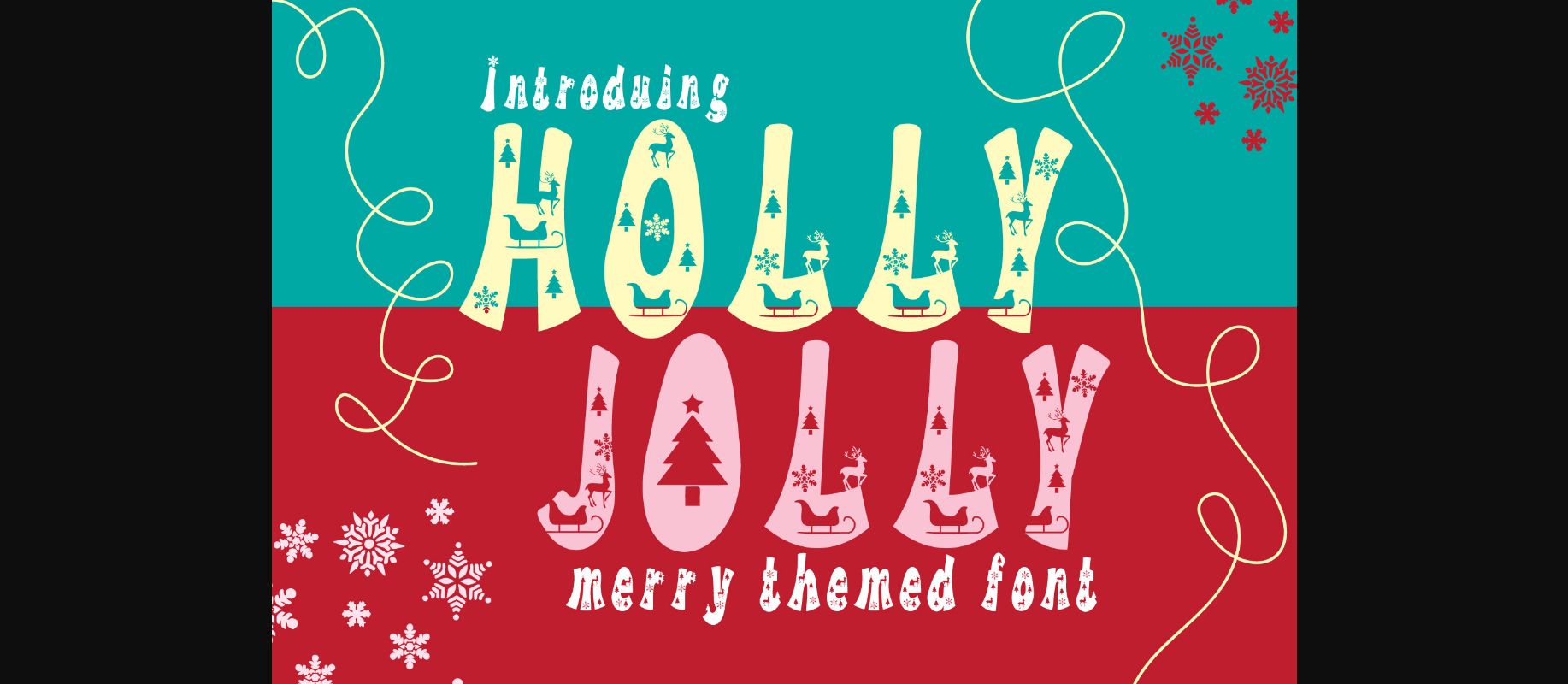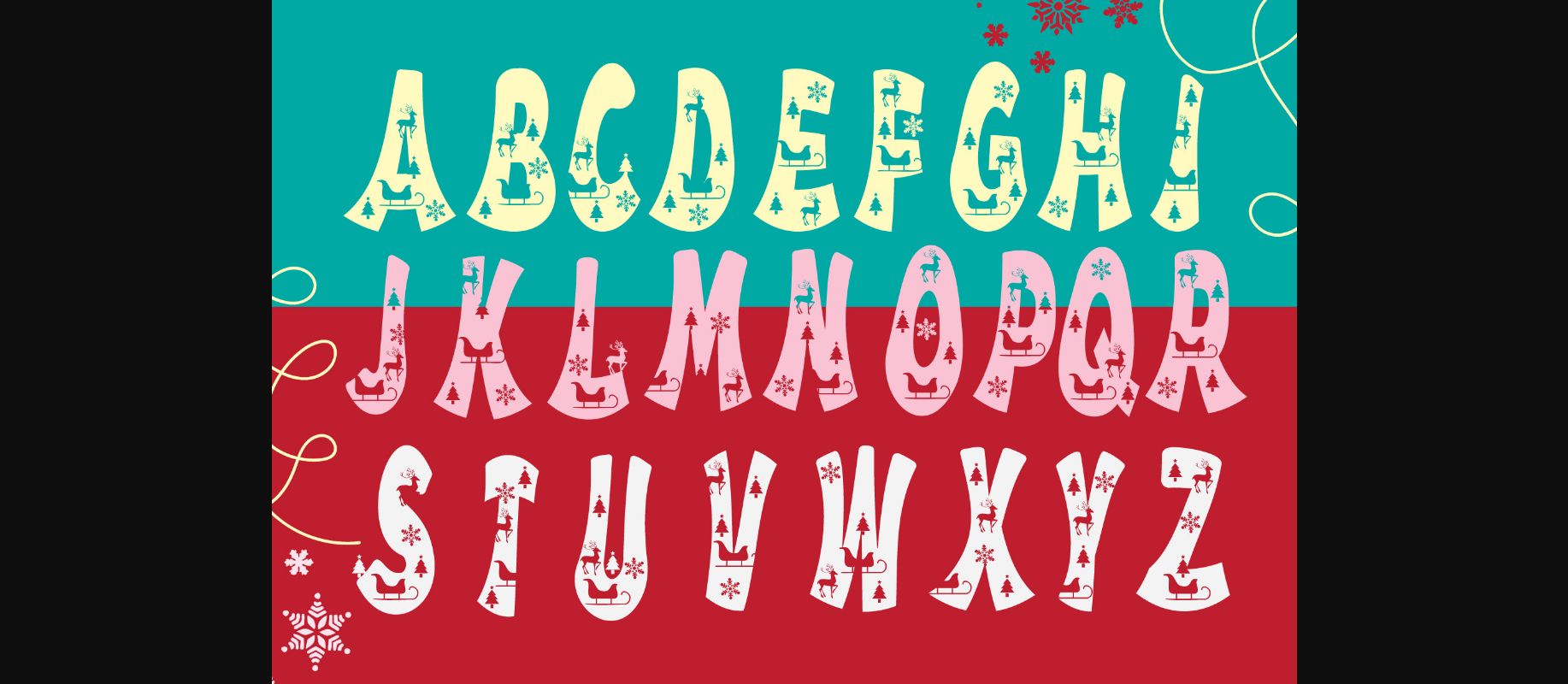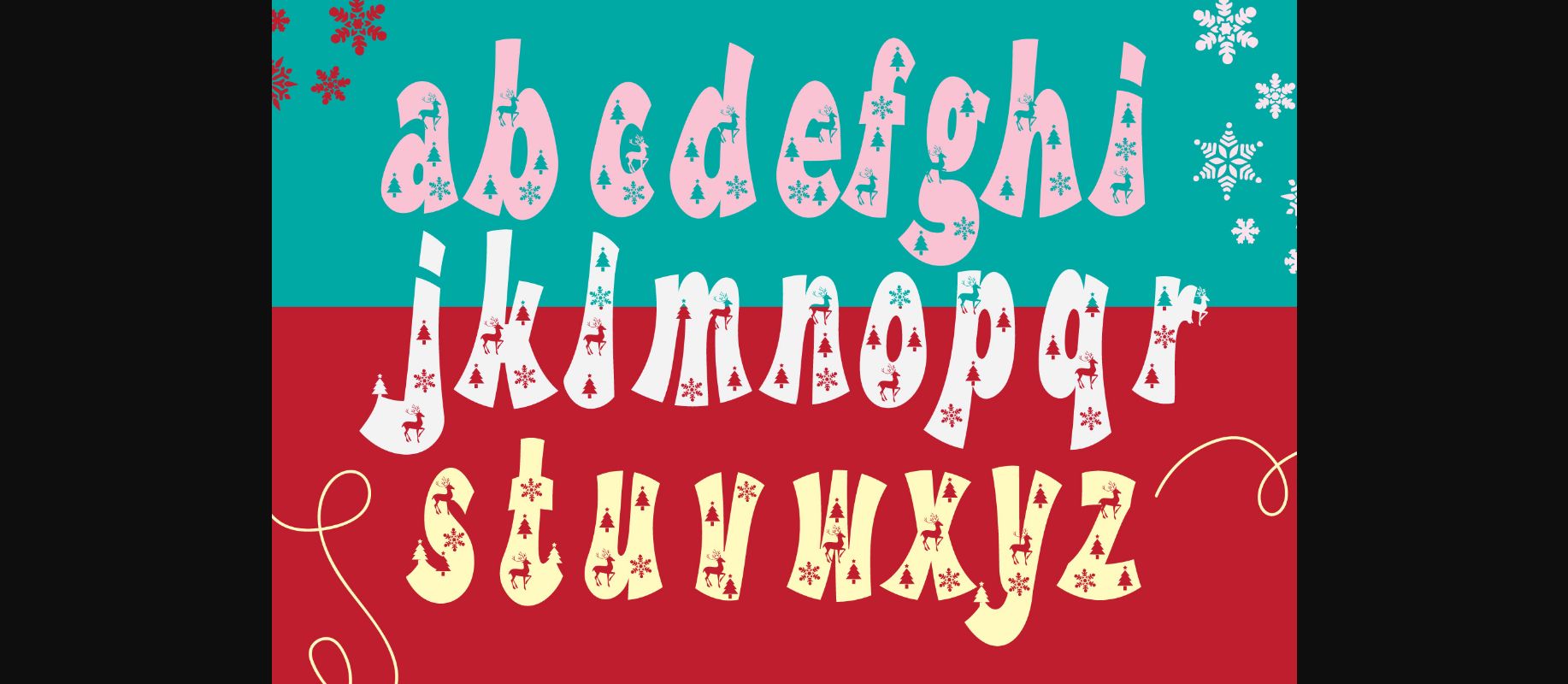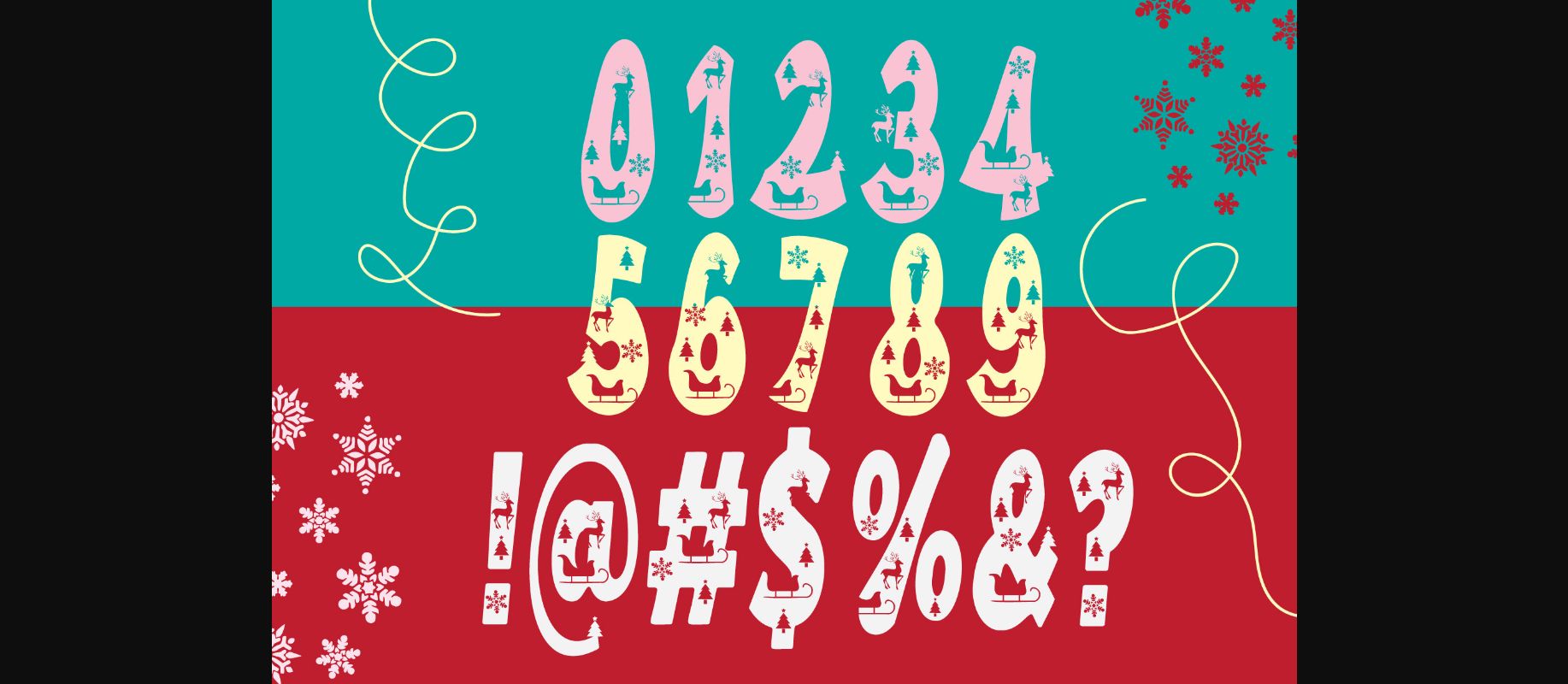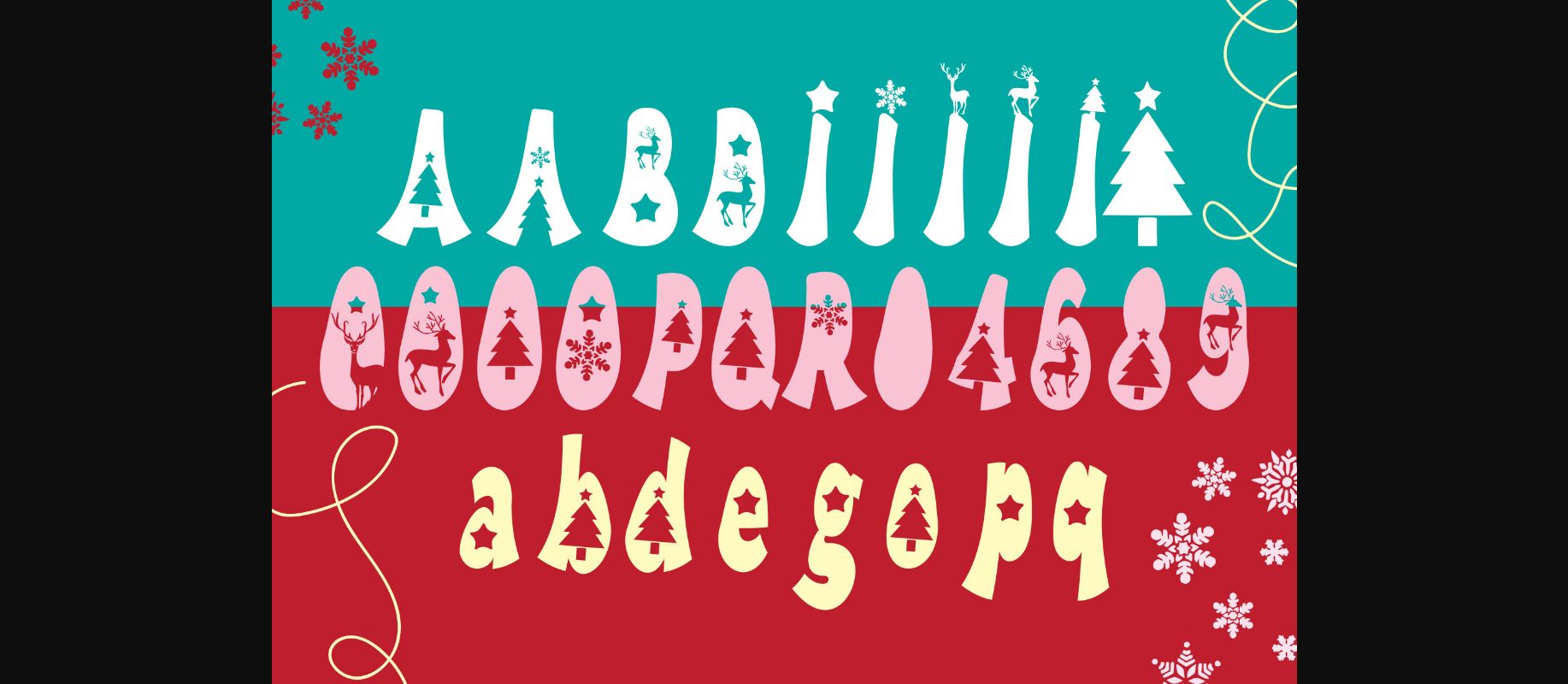
Holly Jolly Font
About Holly Jolly Font
Holly Jolly is a thick lettered and incredibly unique decorative font. It can be used for various design ideas, particularly those related to the Christmas Holiday.